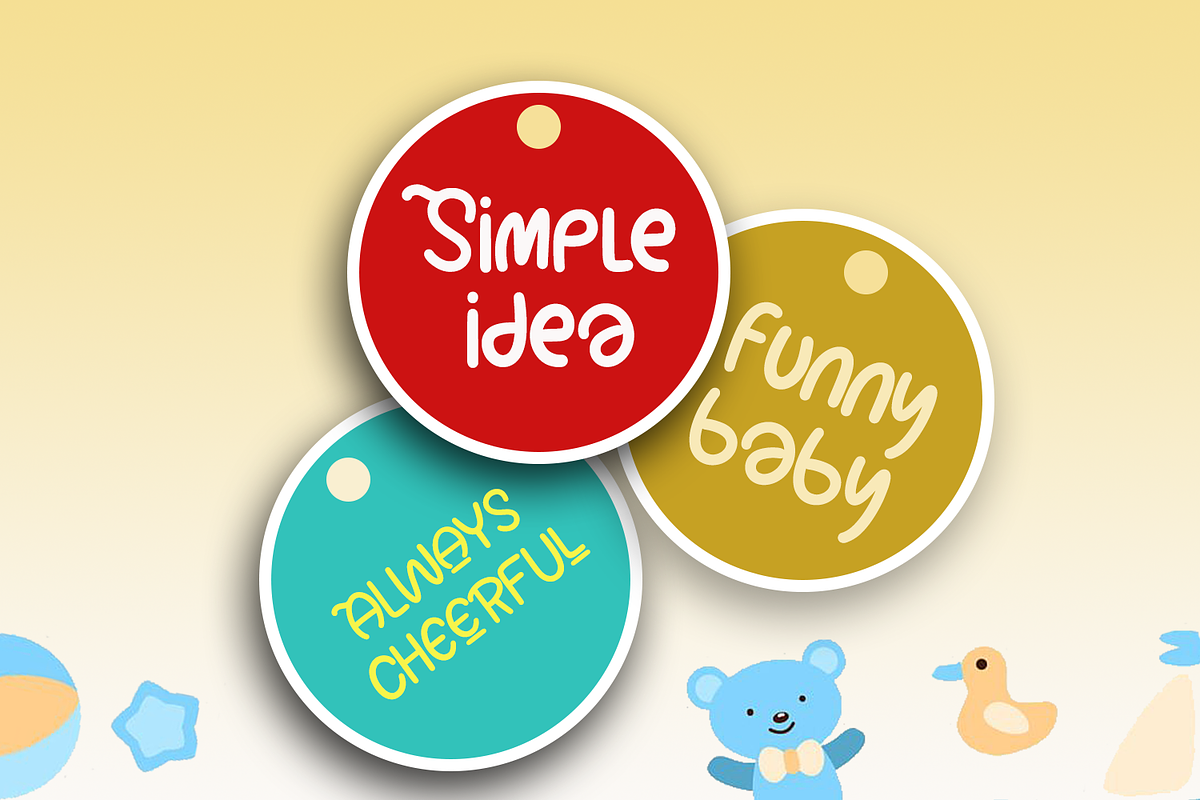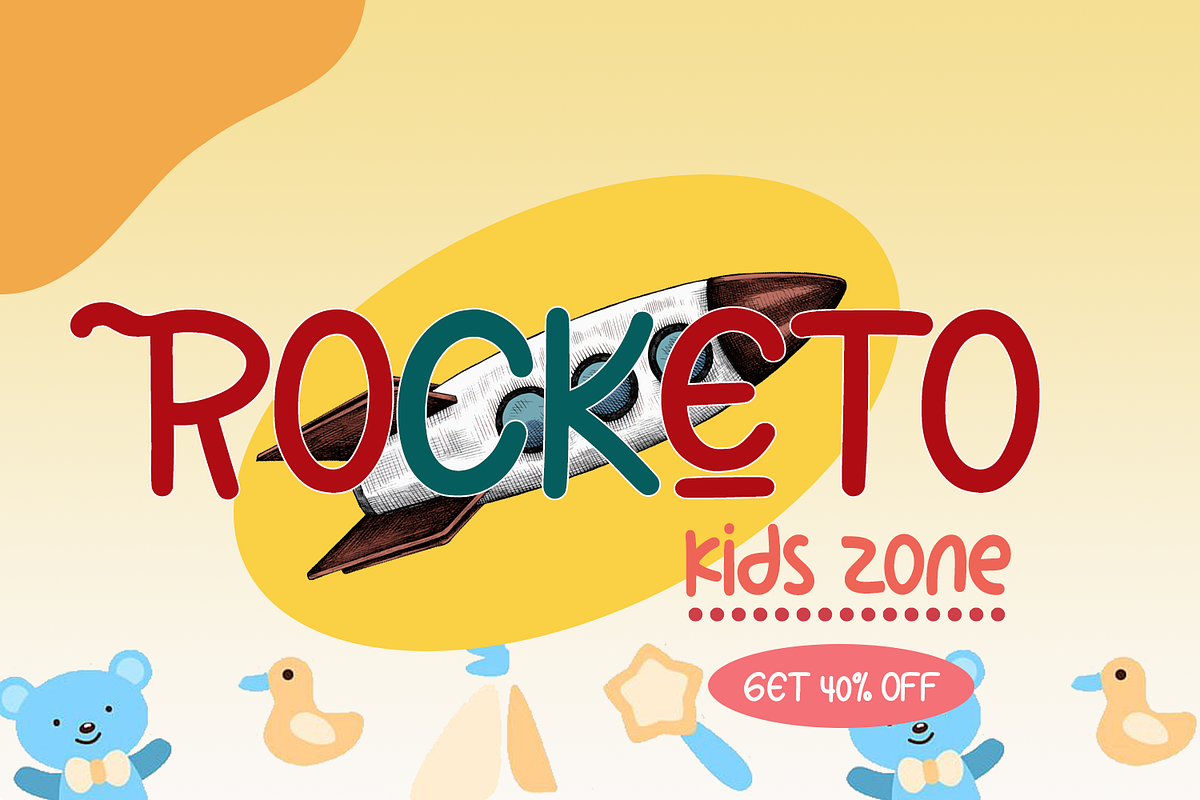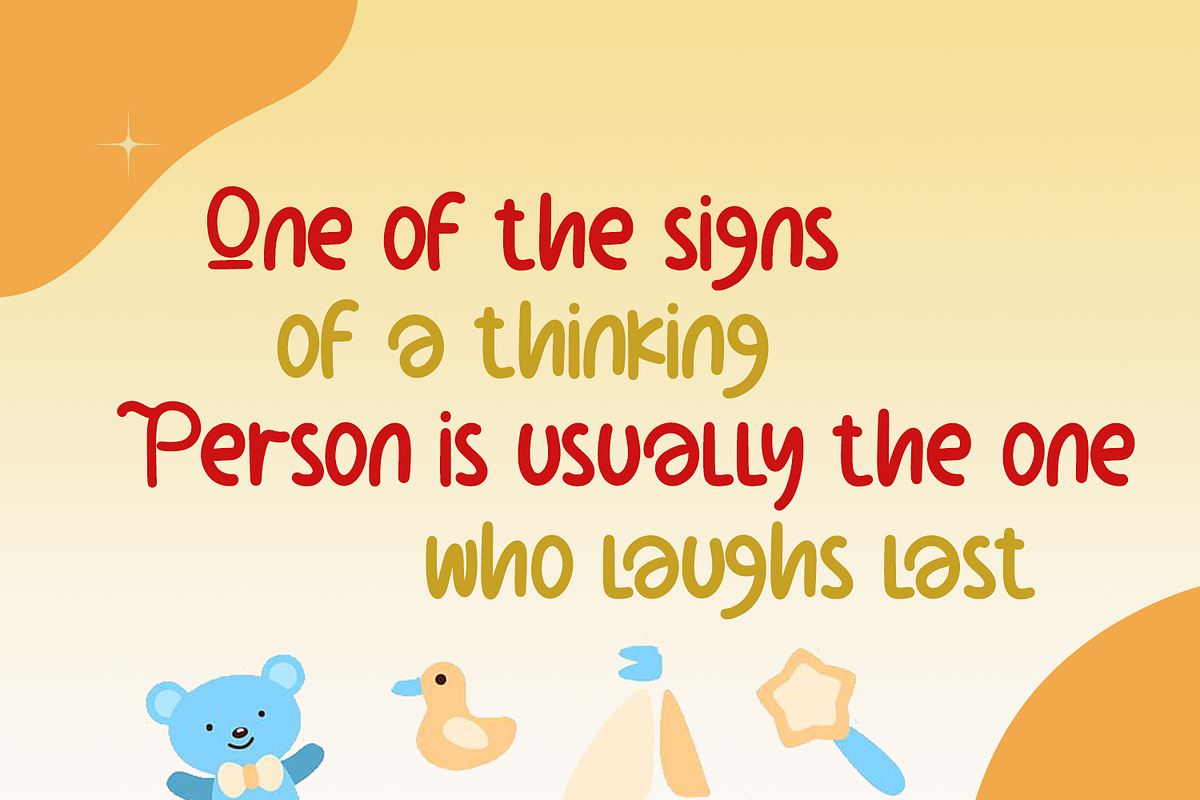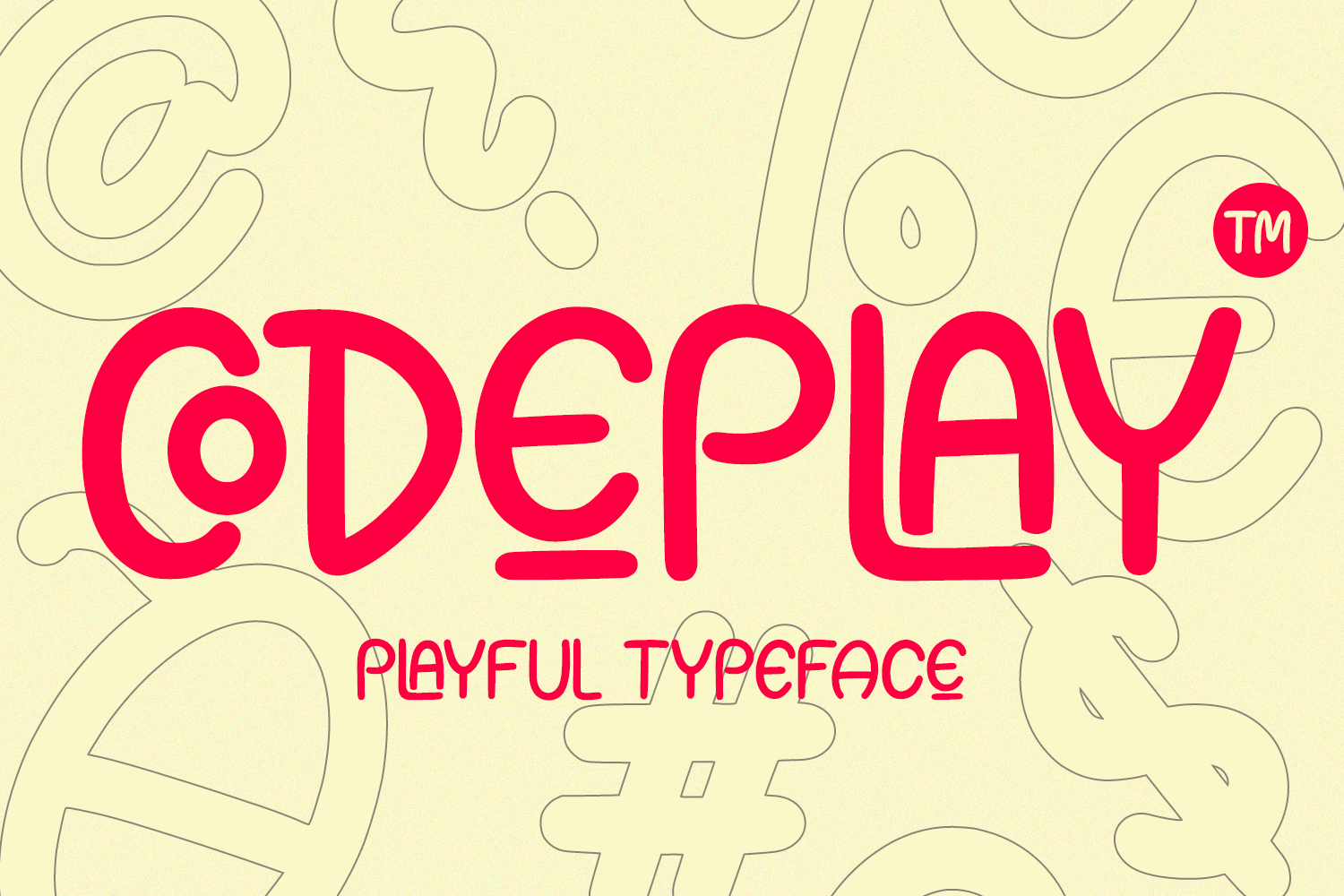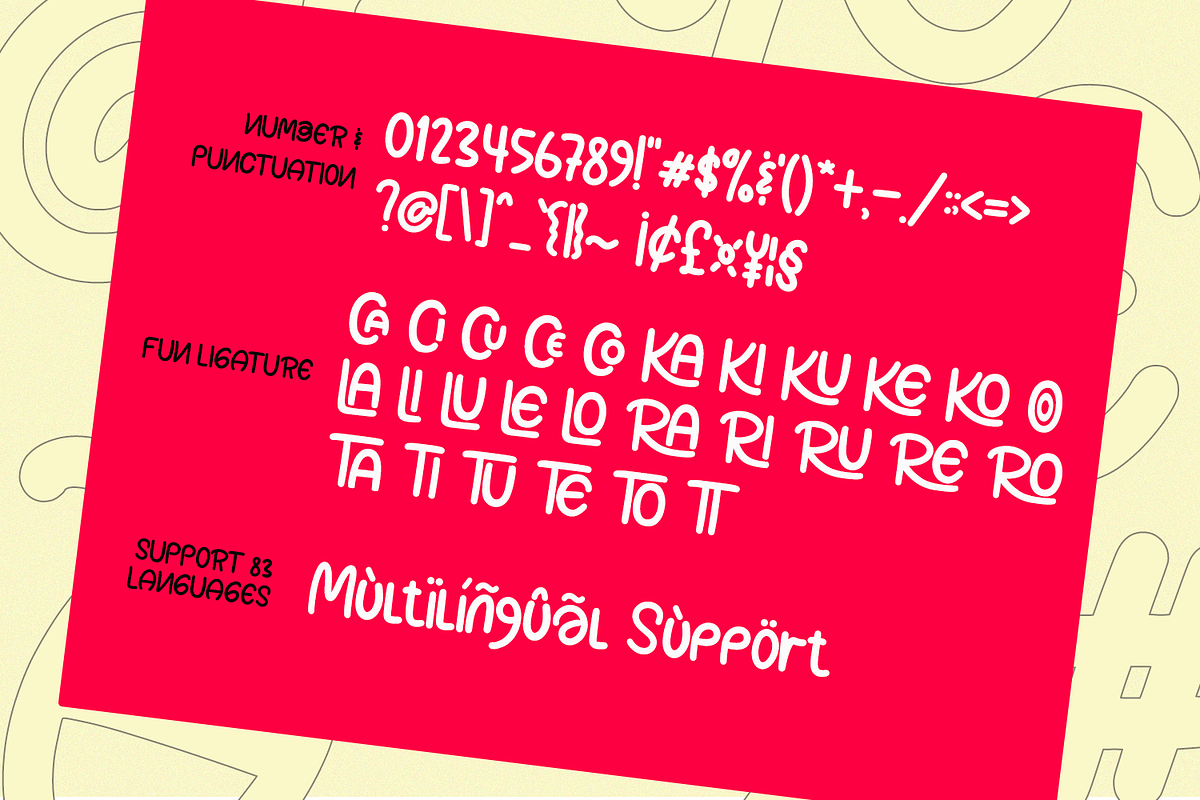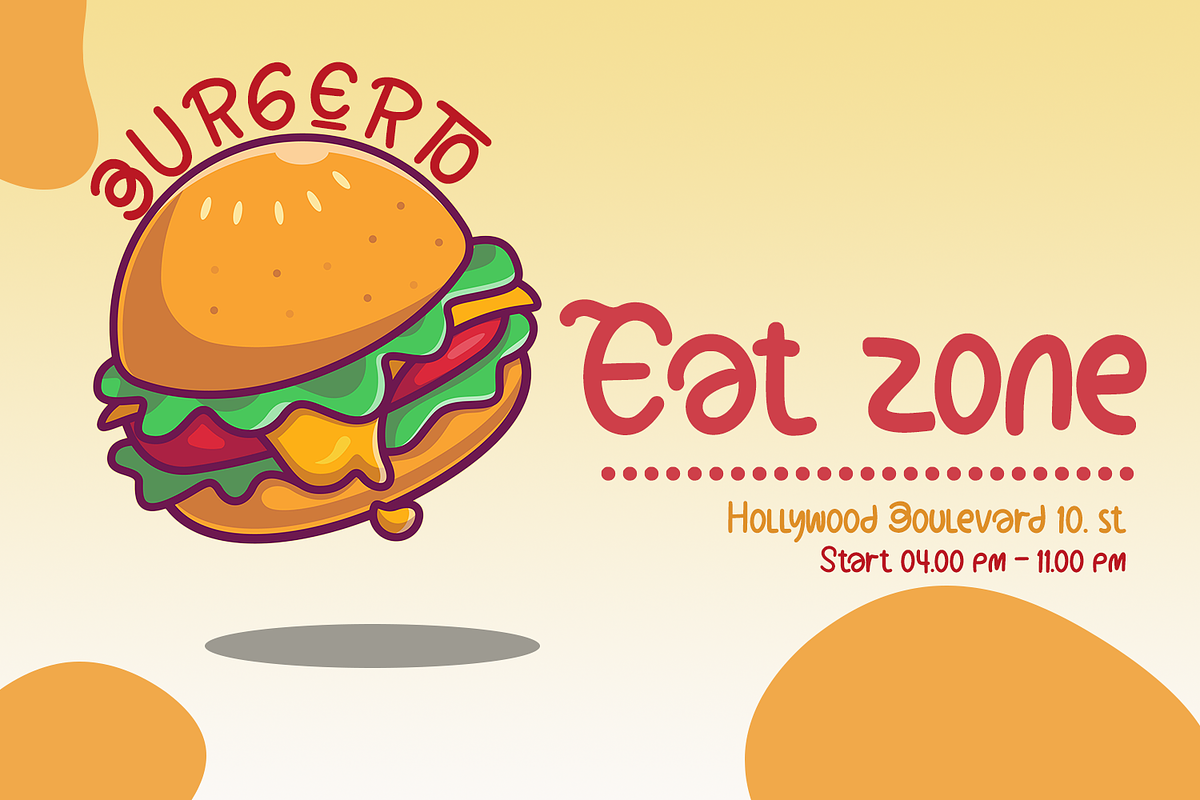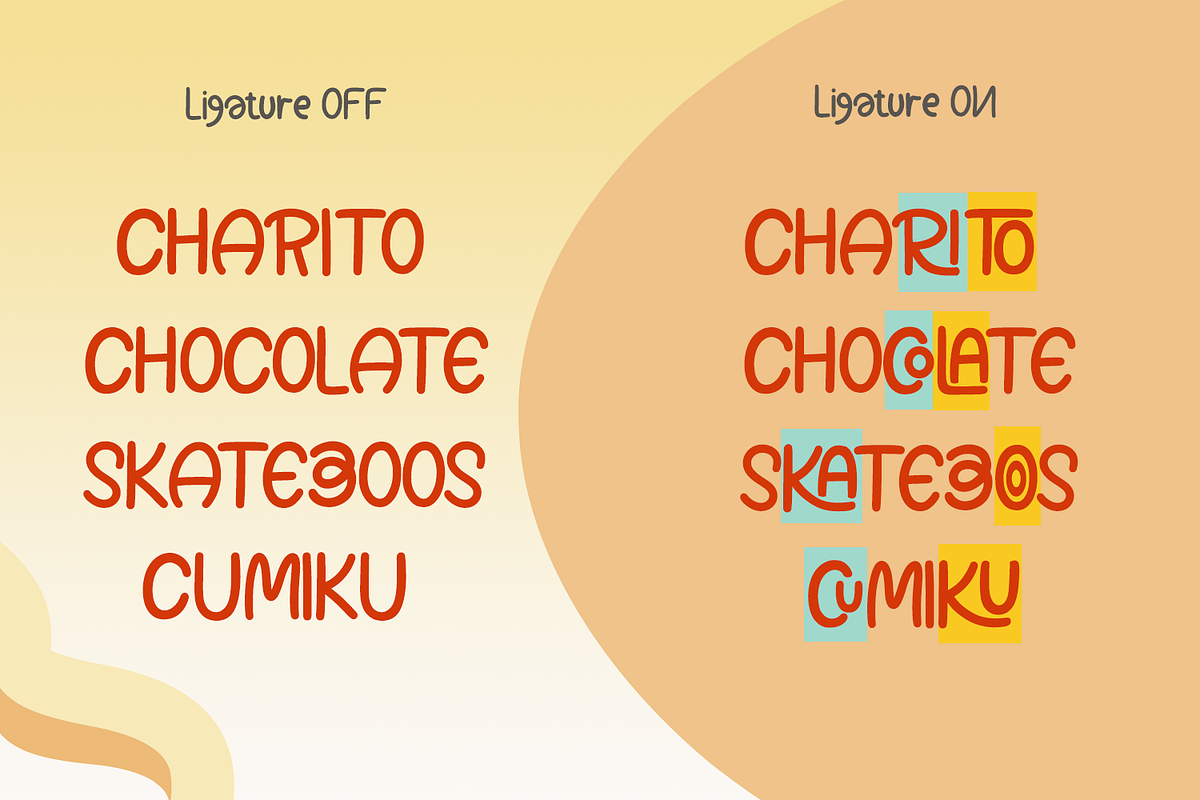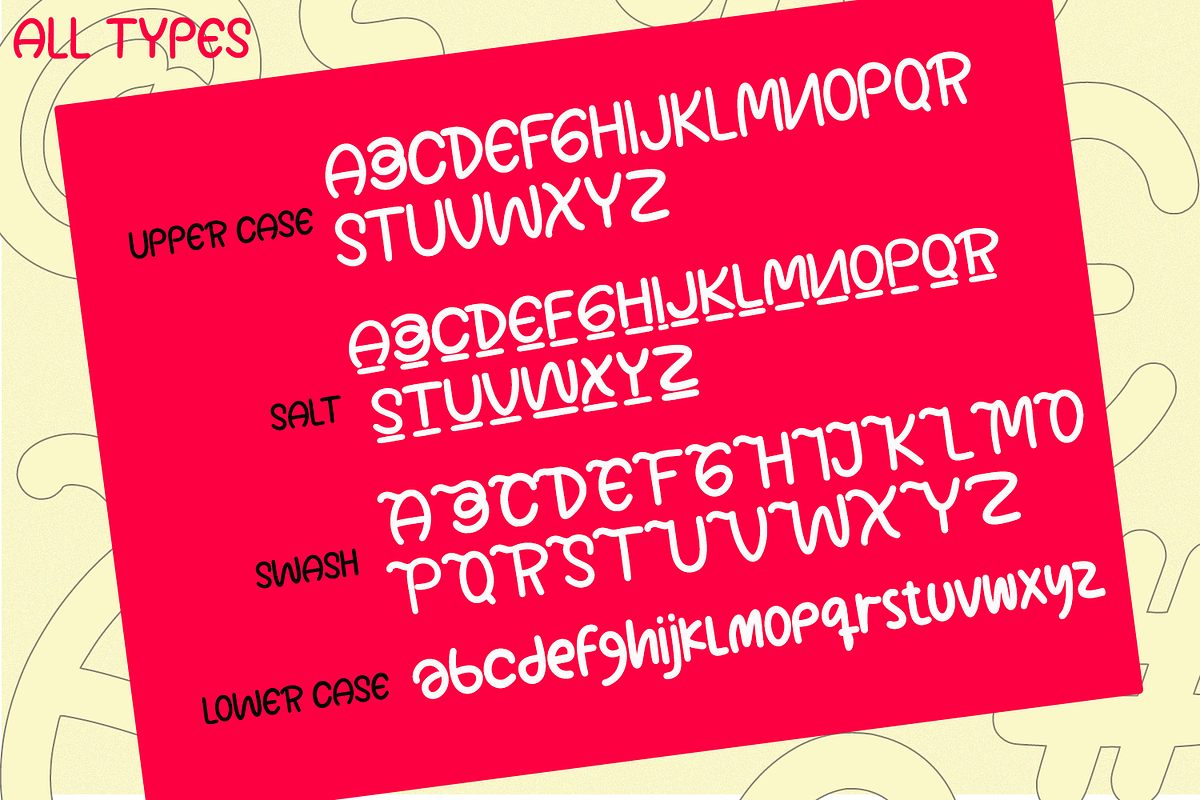
Codeplay//Playful Font
Are you looking for handwritten originals with fun characters? Yes, you will find it right here.
Codeplay is a original handwritten font. It is suitable for svg designs, pottery, shirts, hats, tote bags, wall art, interior prints, and get creative with its childlike playfulness.
-Multilingual Support for 83 Country -Funny Ligature collection -PUA Encoded -Numerals and Punctuation